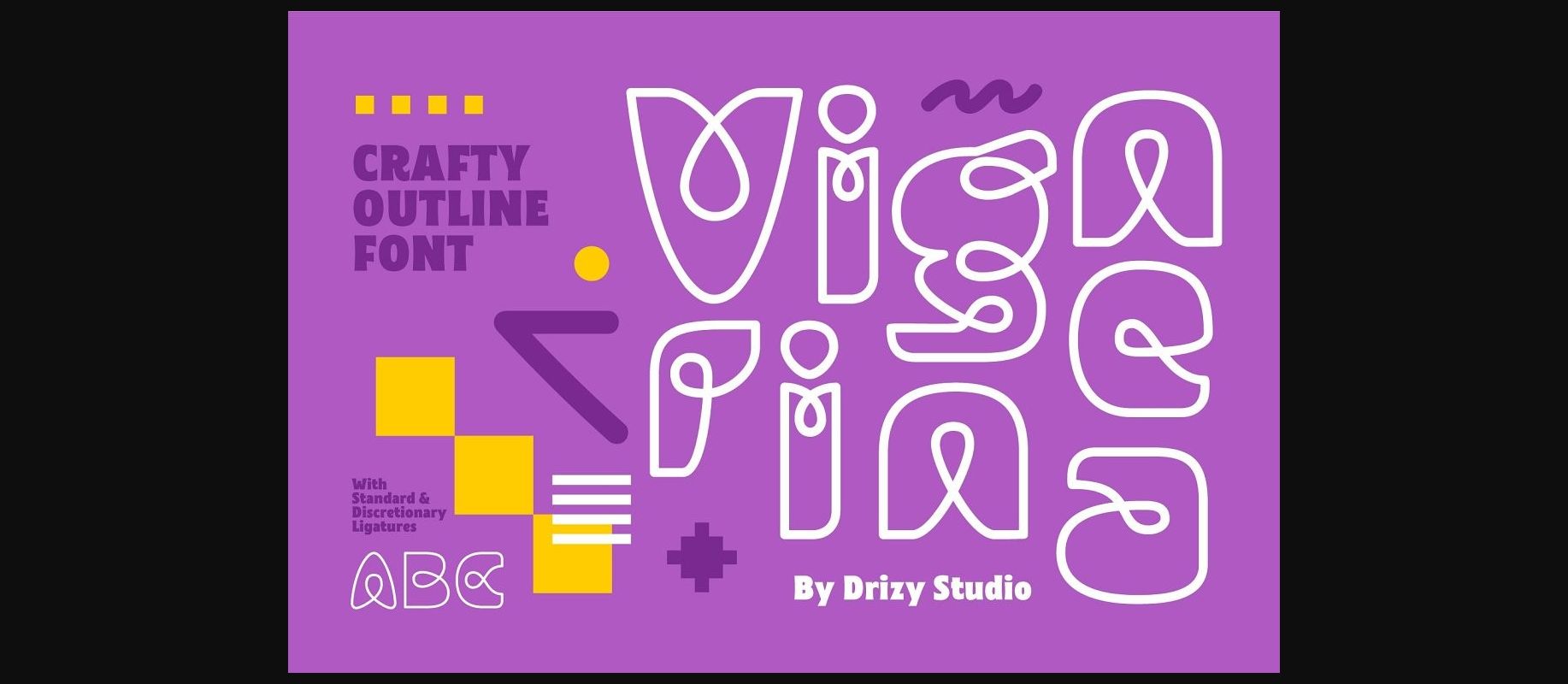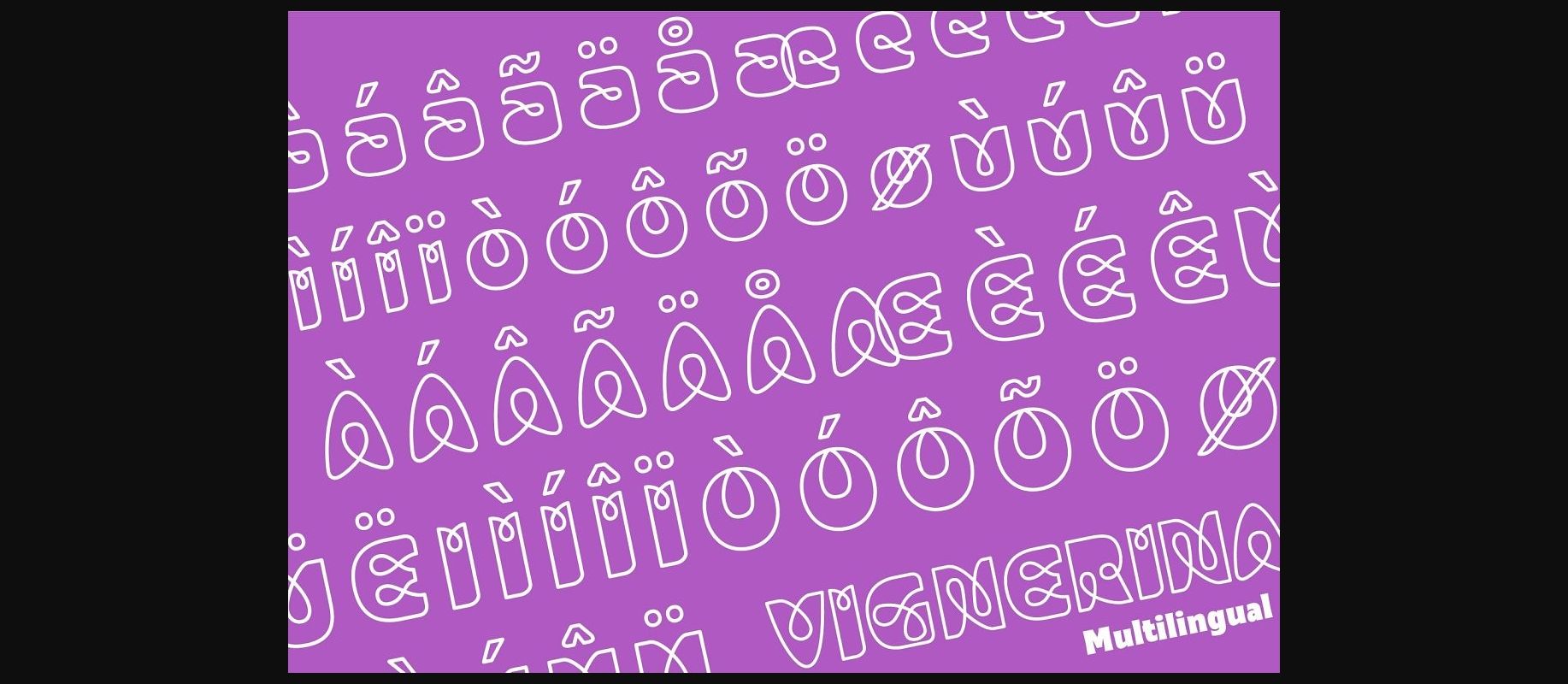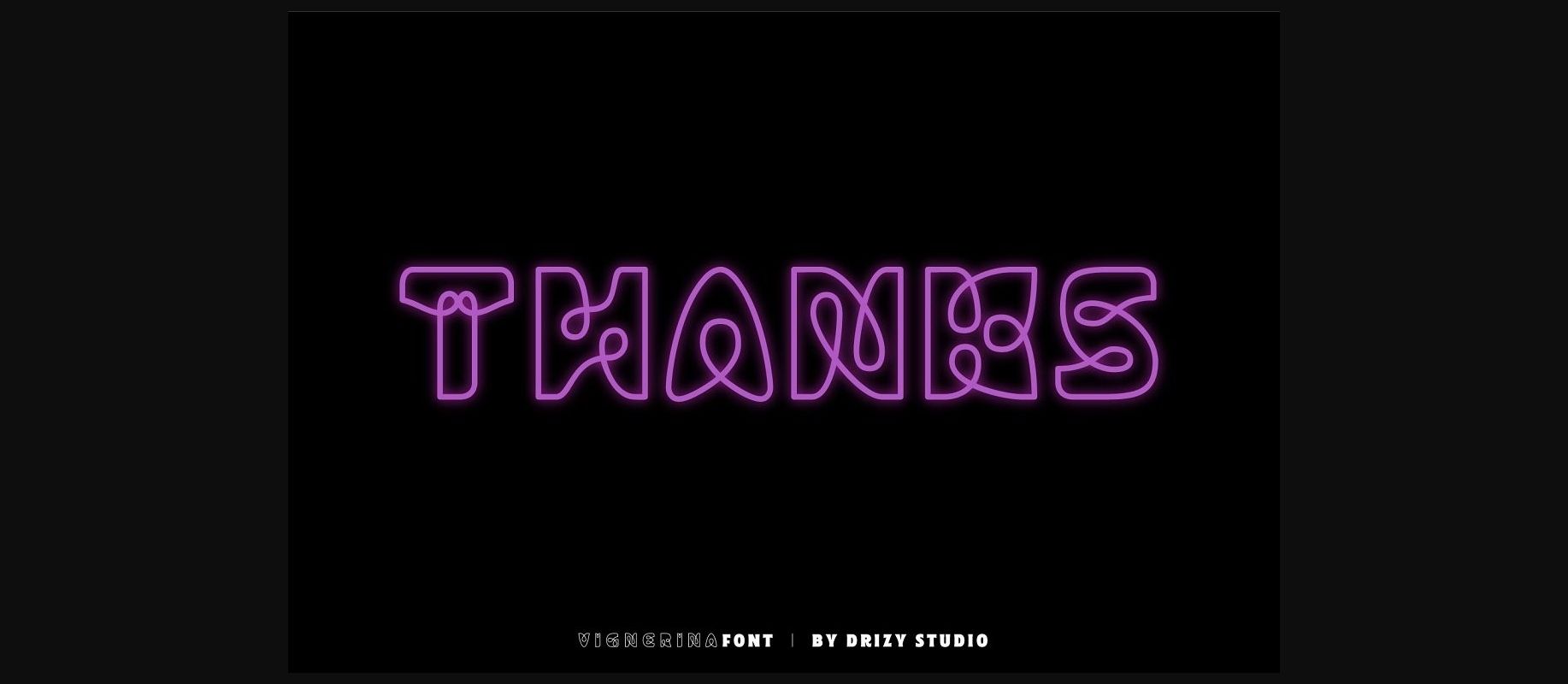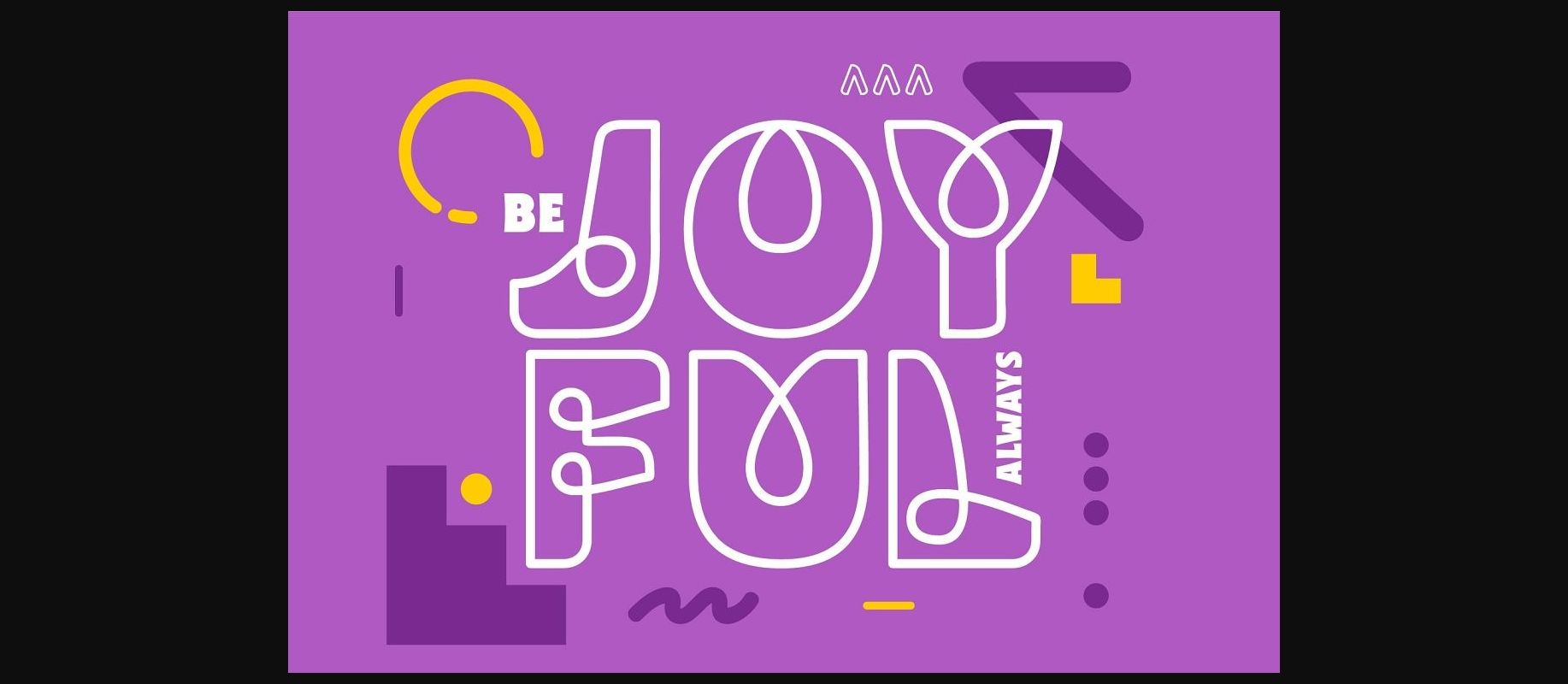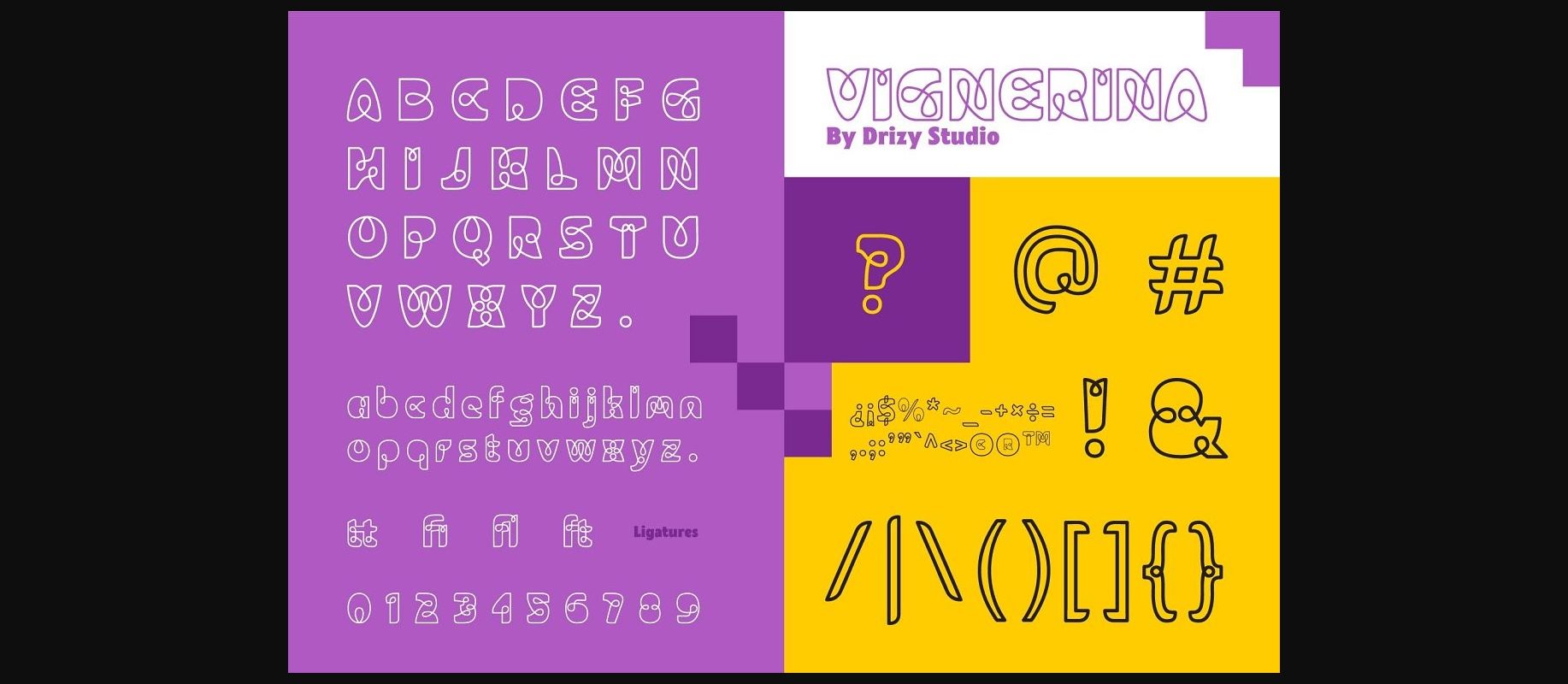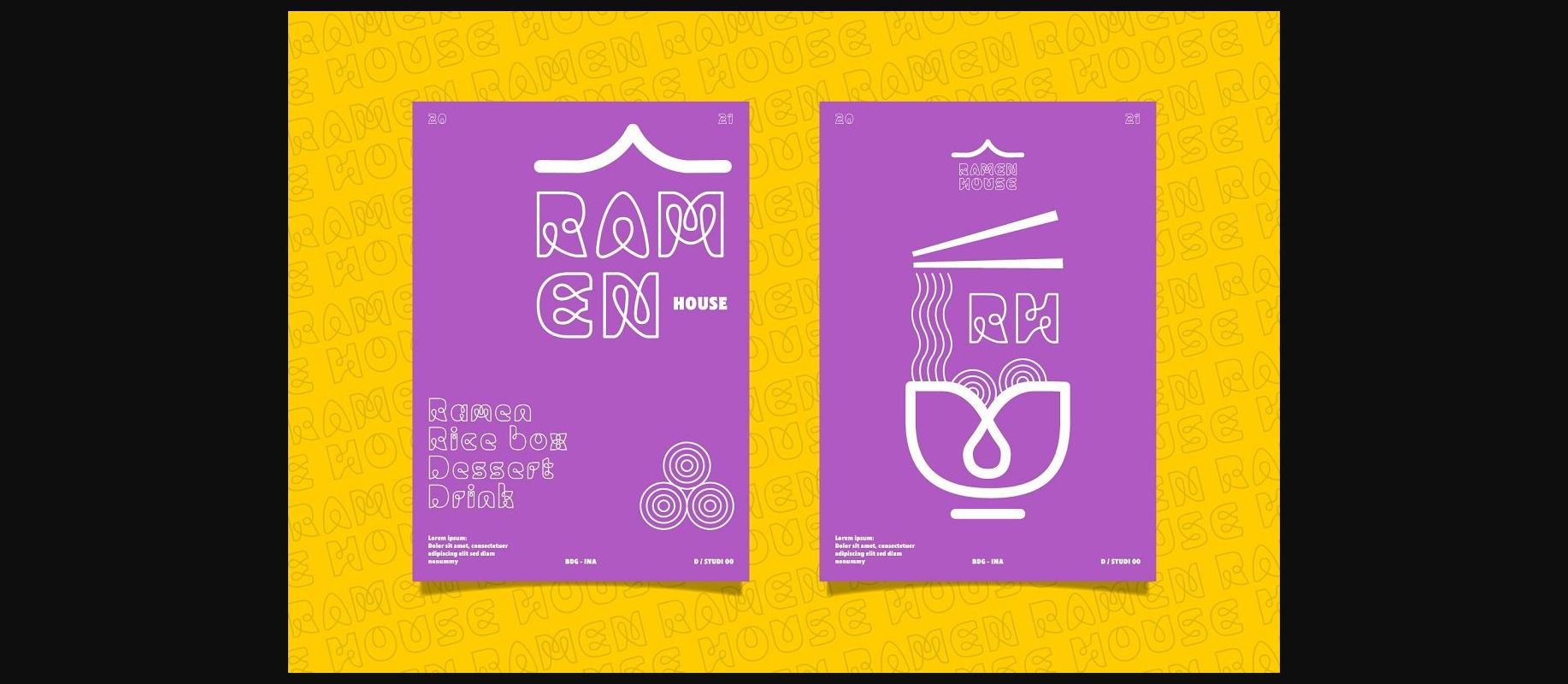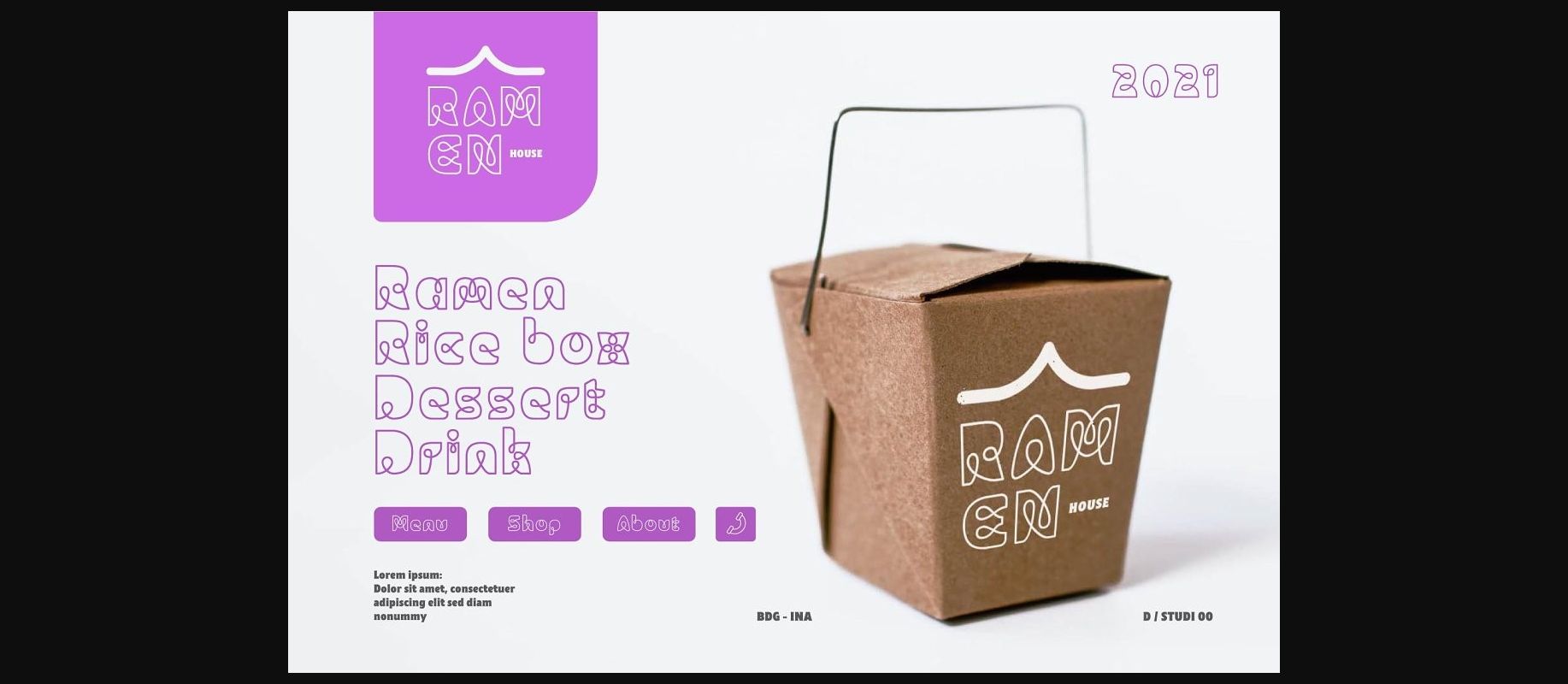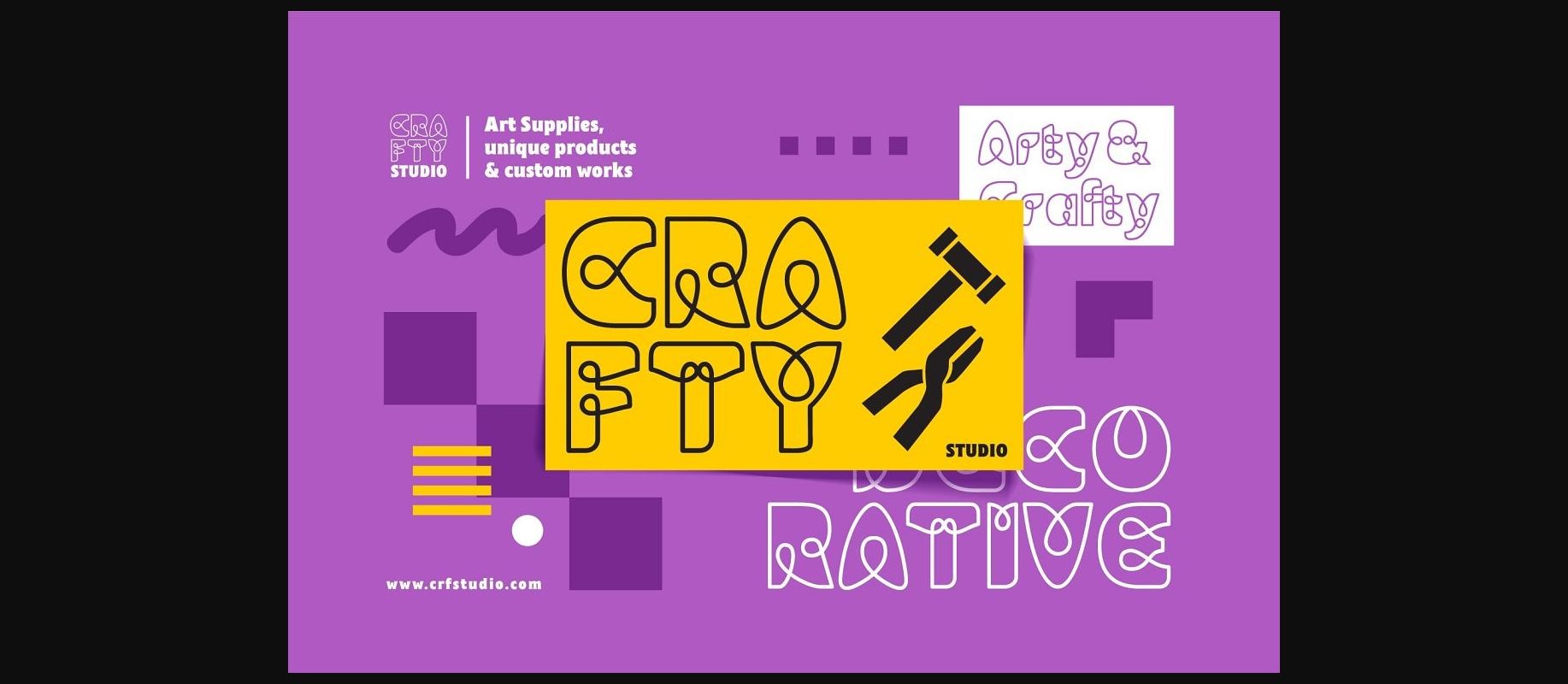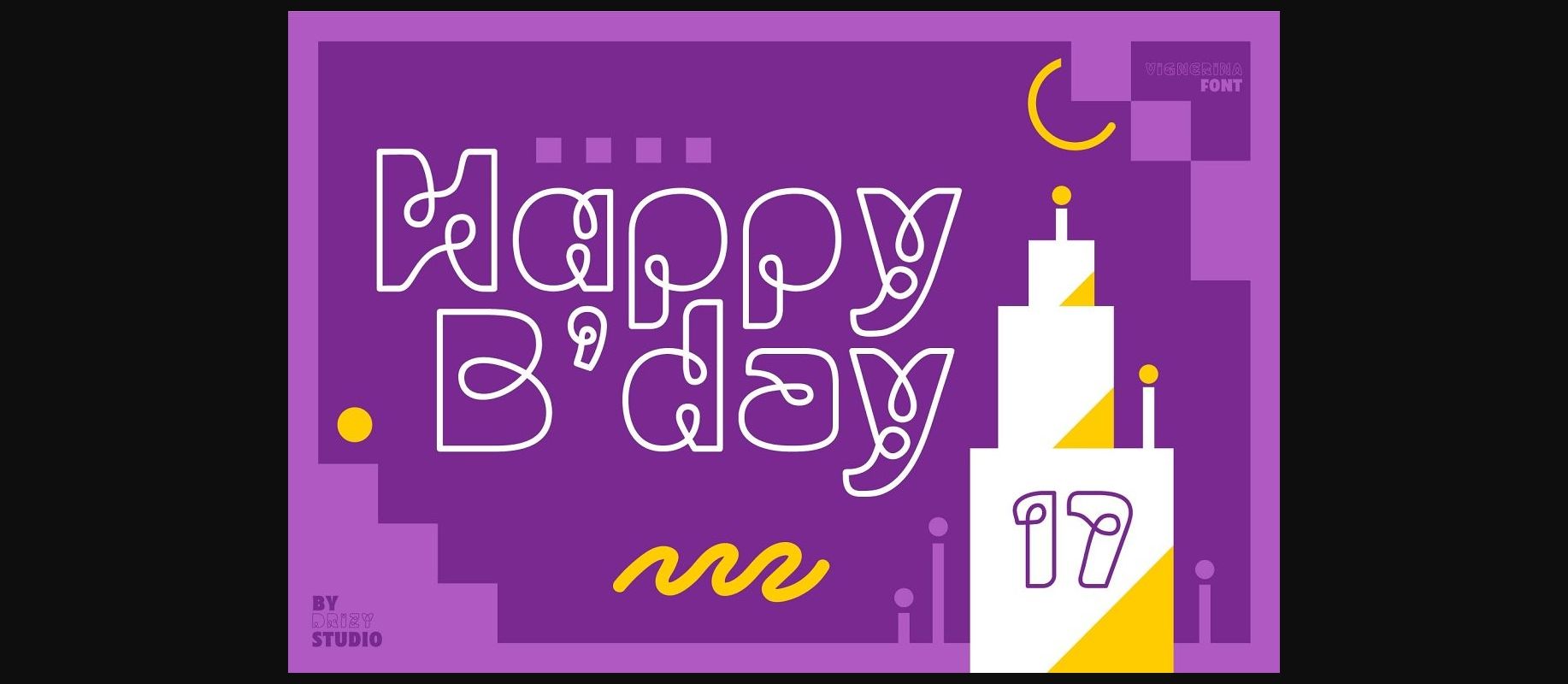
Vignerina is a cool and modern decorative font inspired by ancient signs. Abstract and intricate, this splendid typeface will elevate the appearance of any creative project!